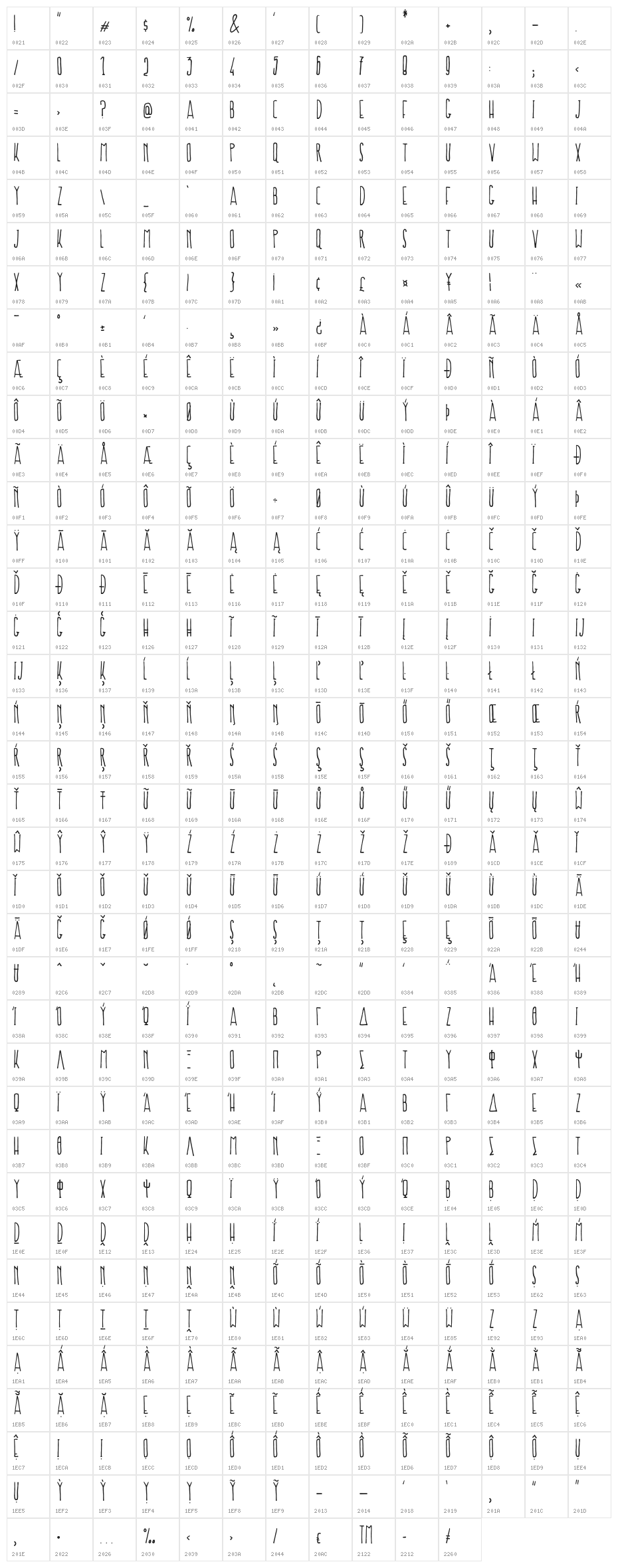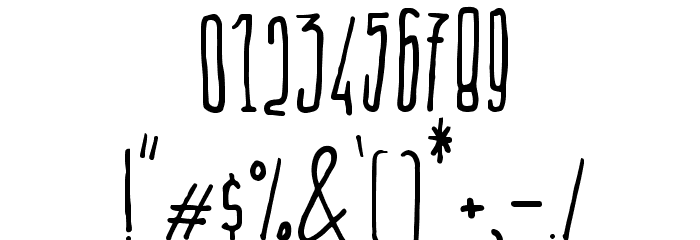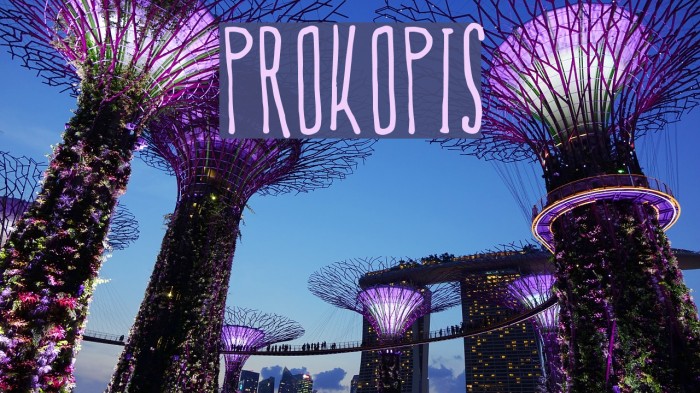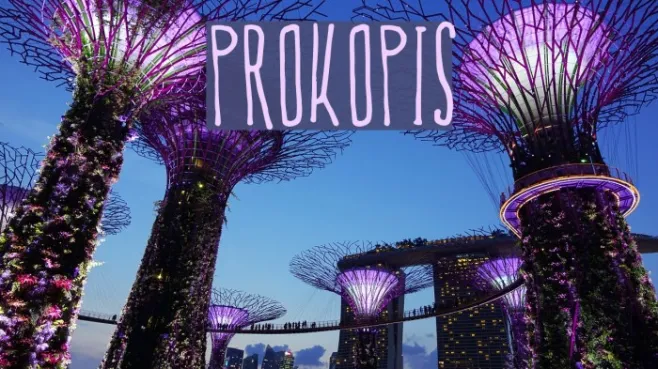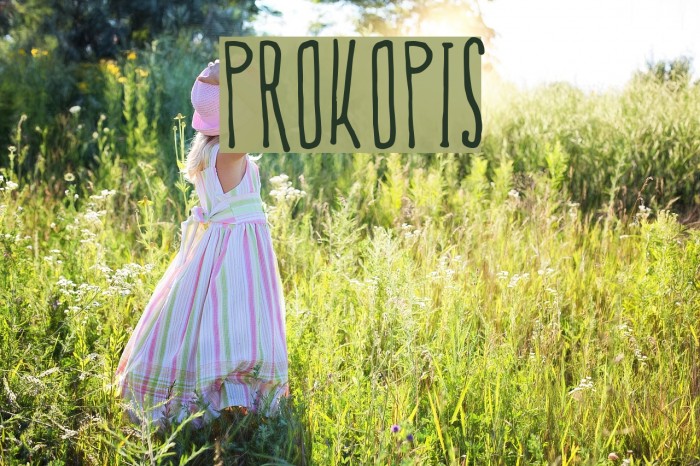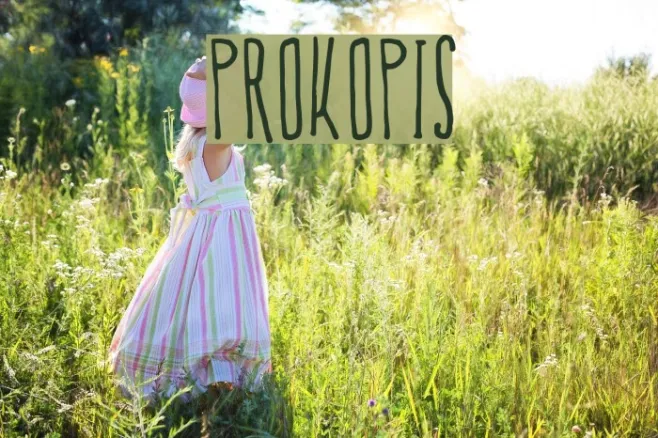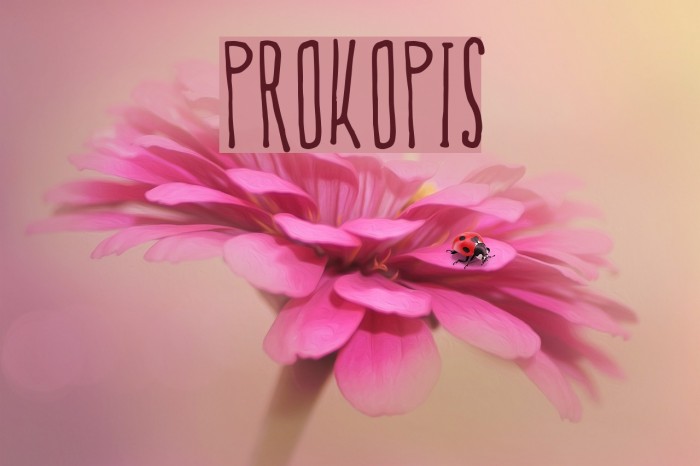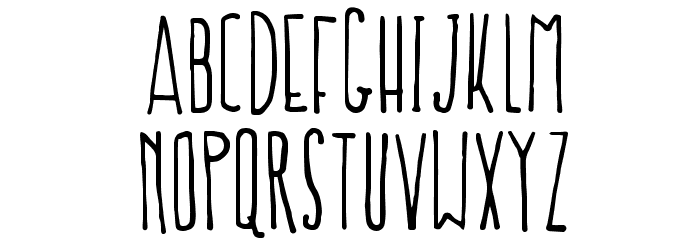
Prokopis Font
Prokopis Description
This font features a unique, hand-drawn style with elongated, slightly irregular strokes that give it a whimsical and artistic appearance. The uppercase and lowercase letters maintain a consistent height, creating a cohesive look. The numbers and special characters follow the same design principles, ensuring uniformity across all glyphs. The overall aesthetic is playful yet sophisticated, making it suitable for creative projects that require a personal touch. The font's distinctiveness lies in its imperfect lines and organic feel, reminiscent of hand-lettering techniques.
| Proposed Projects | Ideal for creative projects such as greeting cards, posters, and branding materials that require a personal, artistic touch. |